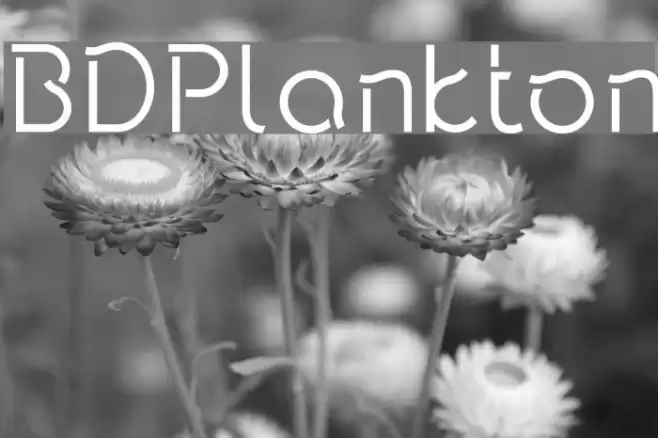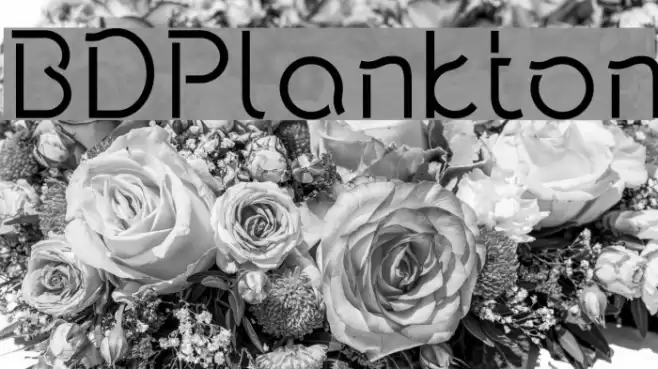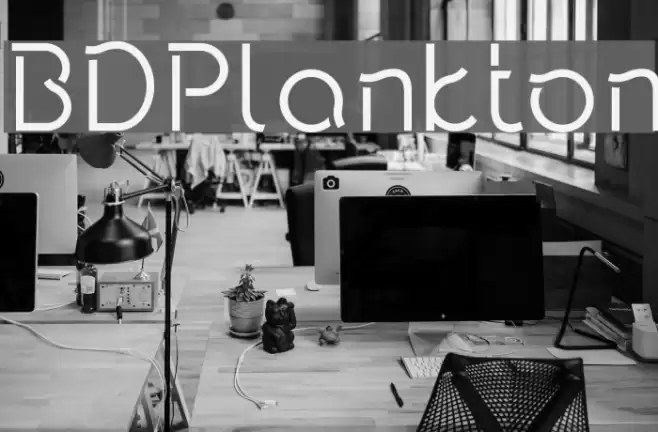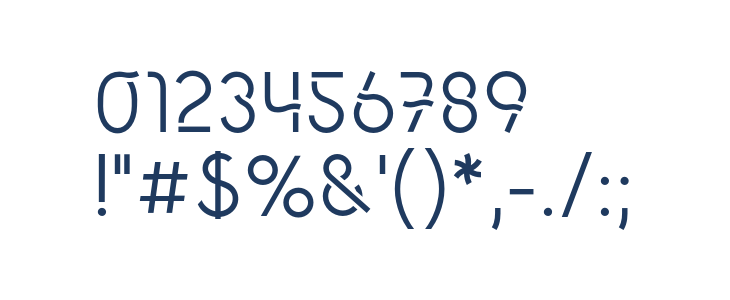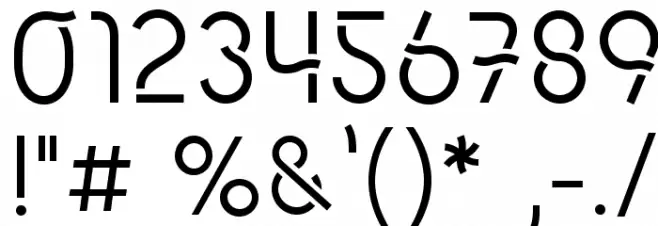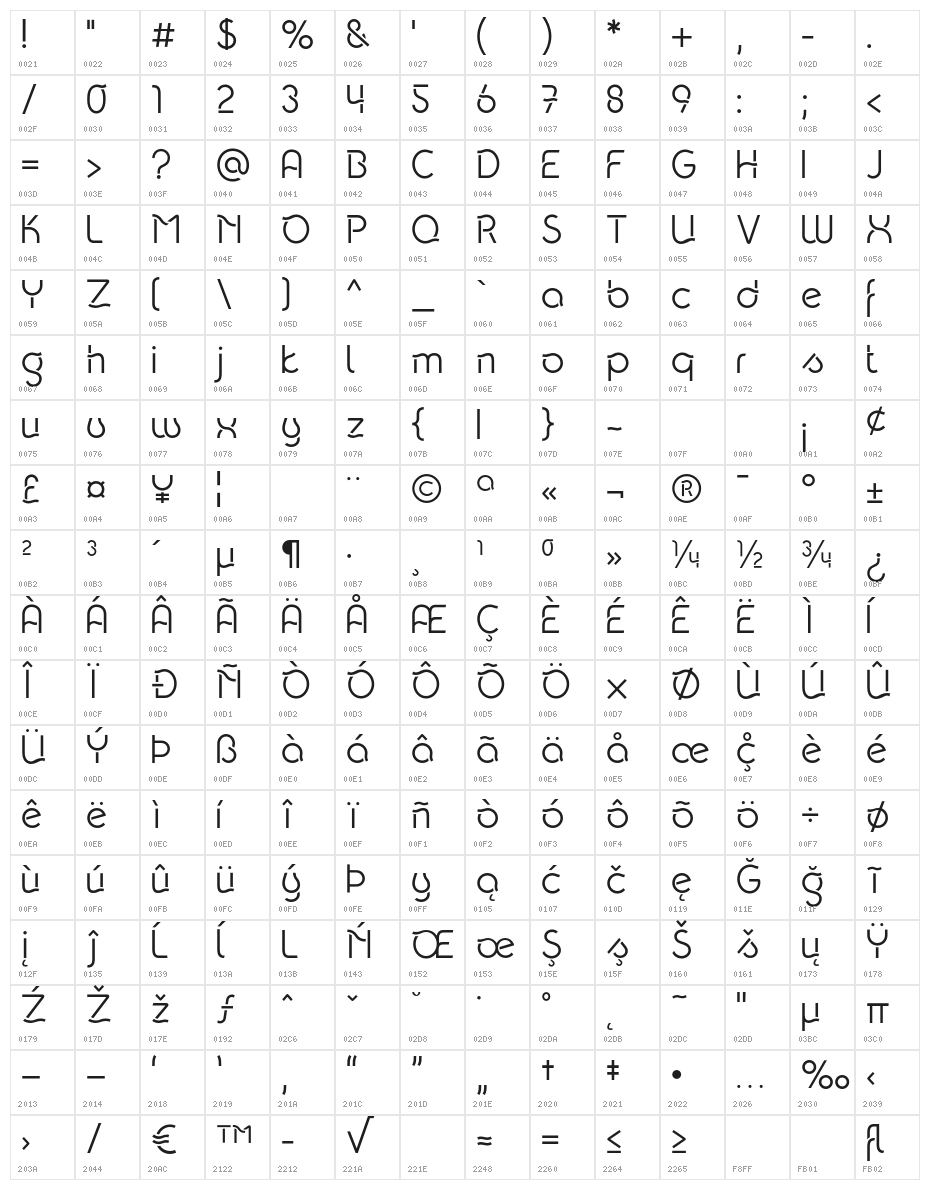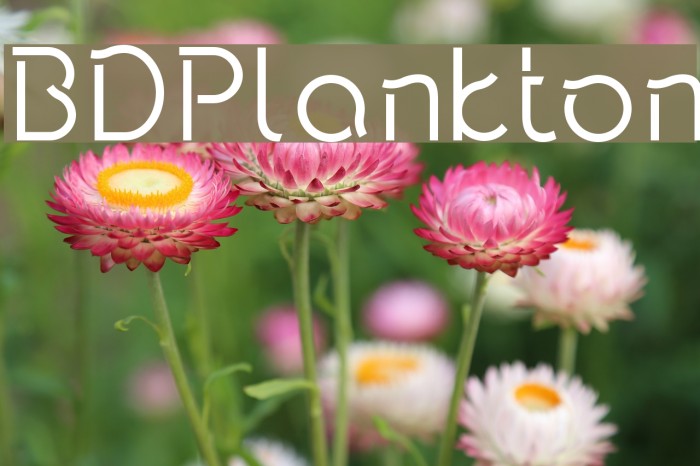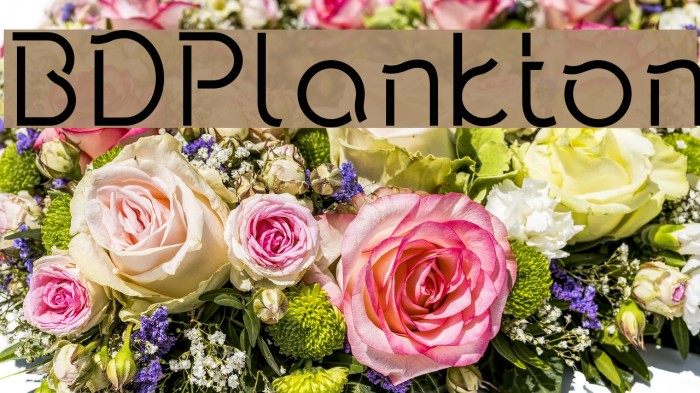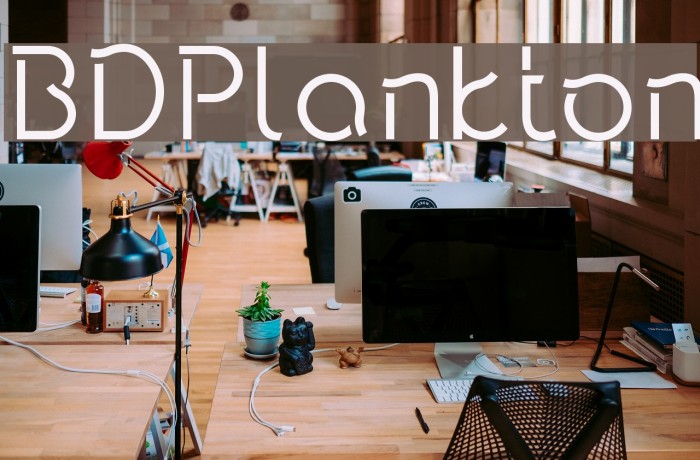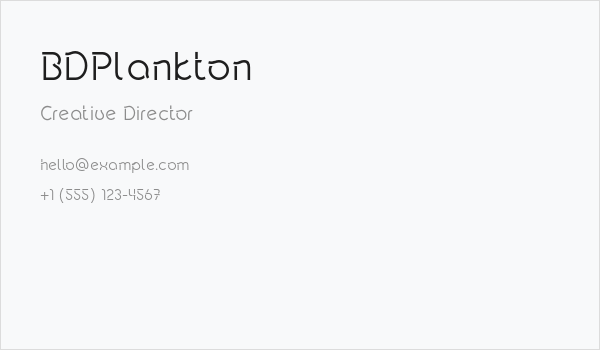
BDPlankton Font
BDPlankton Description
This font features a modern and geometric design with a unique twist on traditional letterforms. The characters are constructed with clean lines and rounded edges, giving it a futuristic and sleek appearance. The uppercase letters are bold and prominent, while the lowercase letters maintain a consistent style with slightly more curvature. Numbers are designed to match the overall aesthetic, ensuring uniformity across all characters. Special characters are included, maintaining the font's distinctive style. The font's design is both functional and visually appealing, making it suitable for a variety of applications.
A modern, geometric font with clean lines and rounded edges from Uncategorized fonts.
- Proposed Projects: Ideal for branding, digital interfaces, and modern print designs.
- Use Case: Headlines, Logos, Digital Interfaces